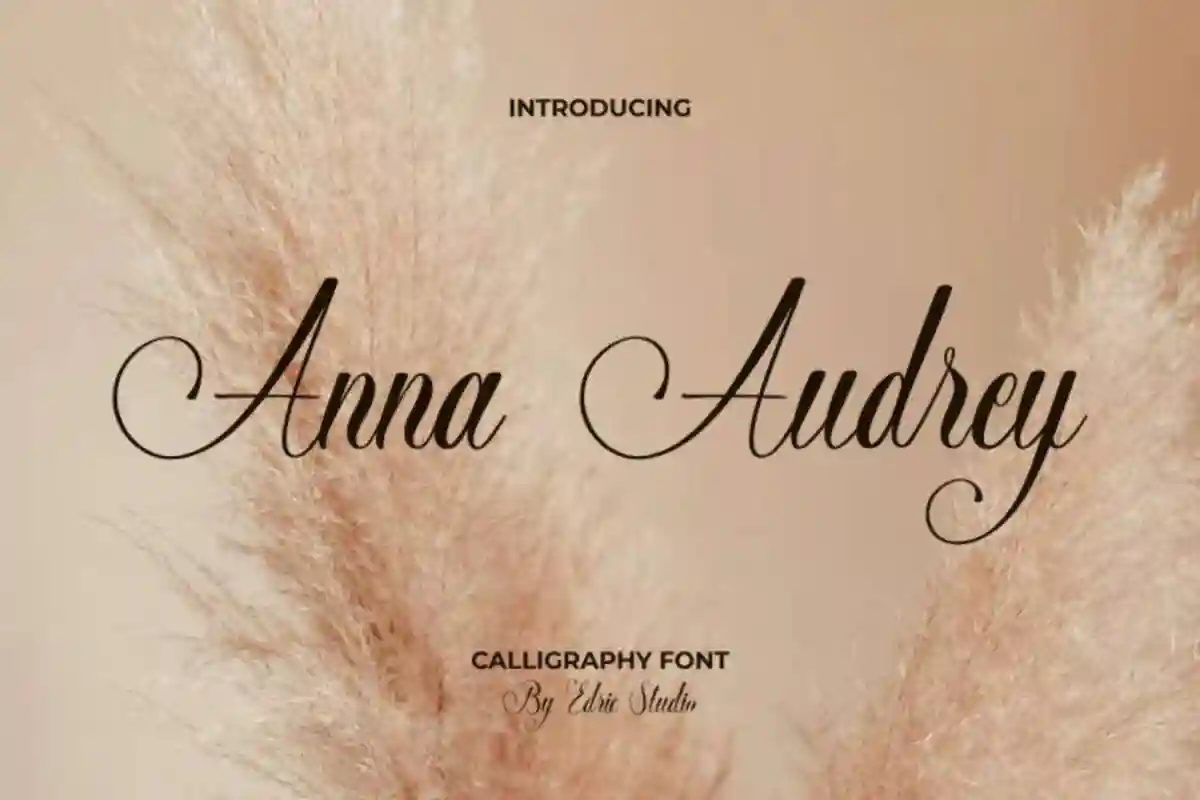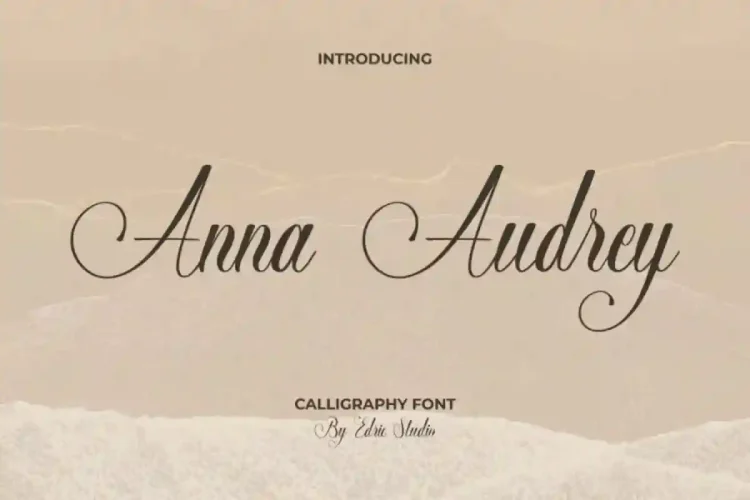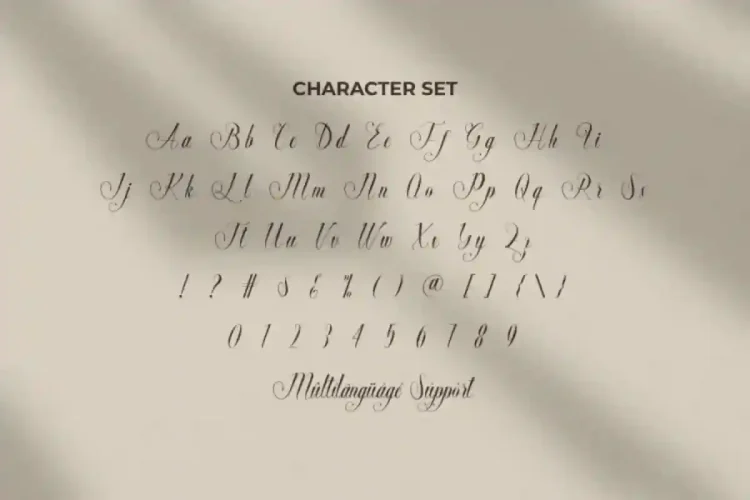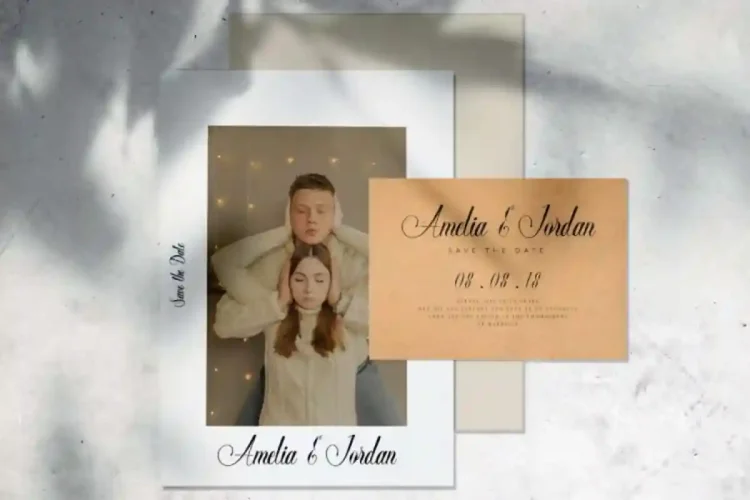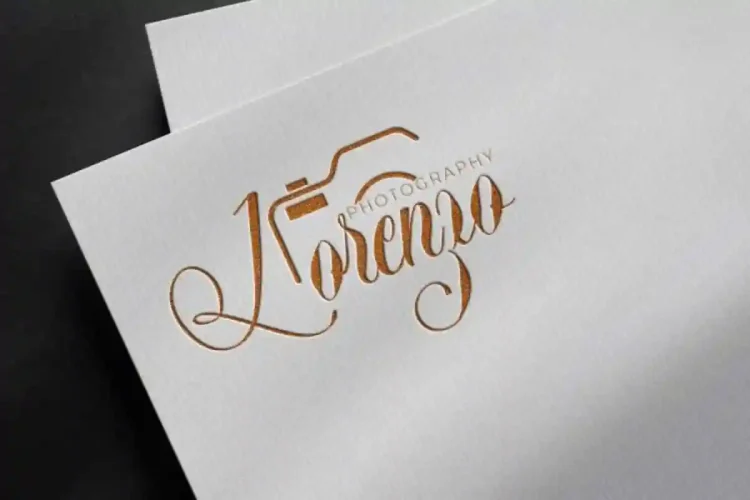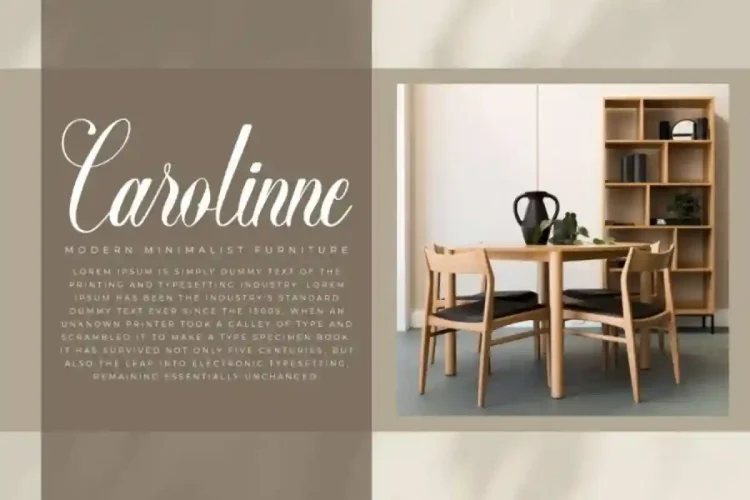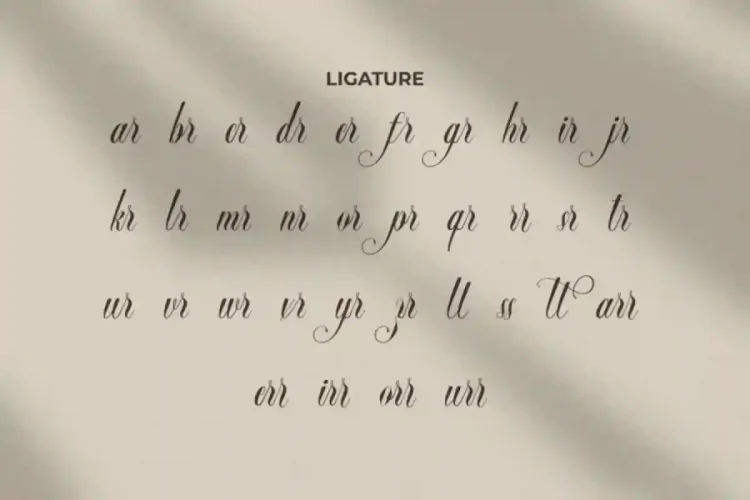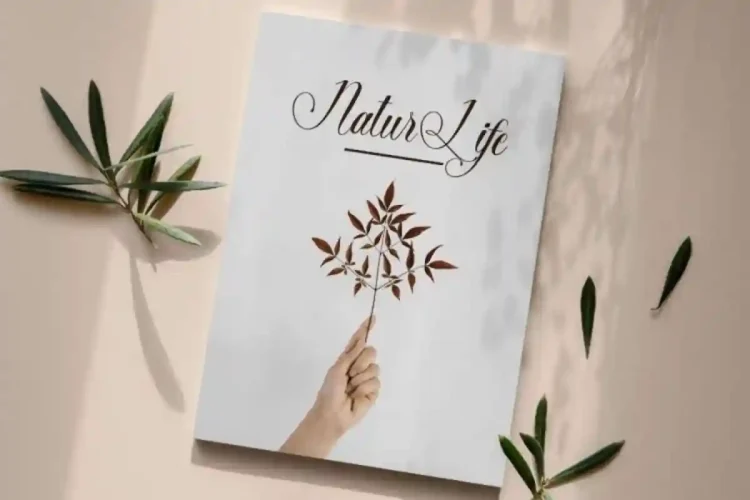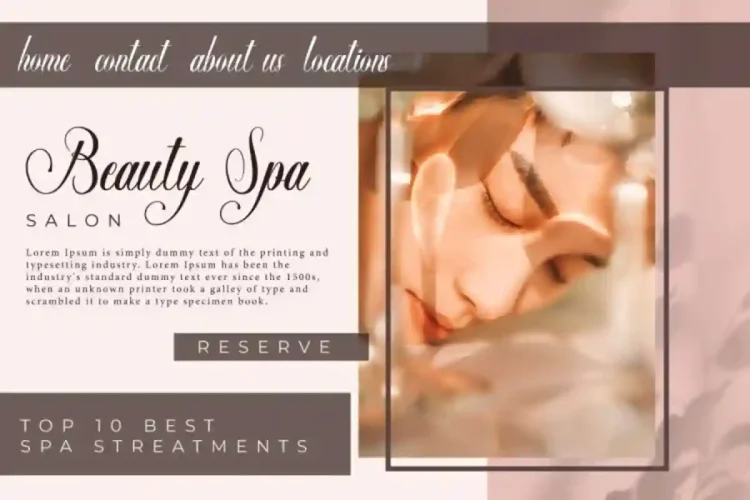
Anna Audrey Calligraphy Font a classy calligraphy typeface created by EdricStudio. Perfect for industries such as architecture, boutique, crafts, jewelry, photography, salon & spa, furniture, wedding organizer, and more, Anna Audrey Font adds beauty and refinement to every design.
Anna Audrey Calligraphy Font includes a complete set of uppercase and lowercase characters, numbers, punctuation, symbols, and ligatures. It has a stunning characters set, perfectly managed with well spaced and kerning.
Anna Audrey Calligraphy Font is a playful typeface with unique decoration in each character. It’s tested to work well in the Adobe Apps (Illustrator, Adobe InDesign, Adobe Photoshop) even work on Microsoft Word. PUA Encode Characters means you can access all the glyphs and other additional characters easily – Fully accessible without additional design software.